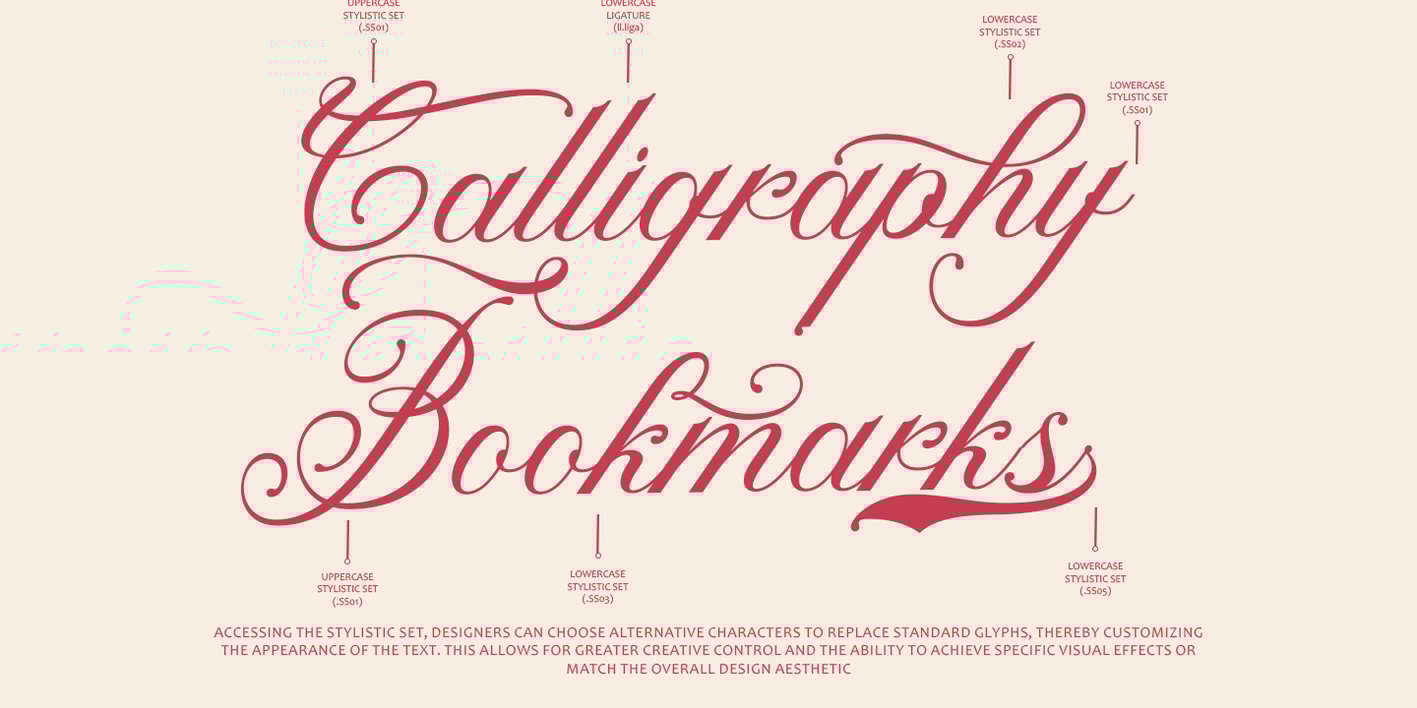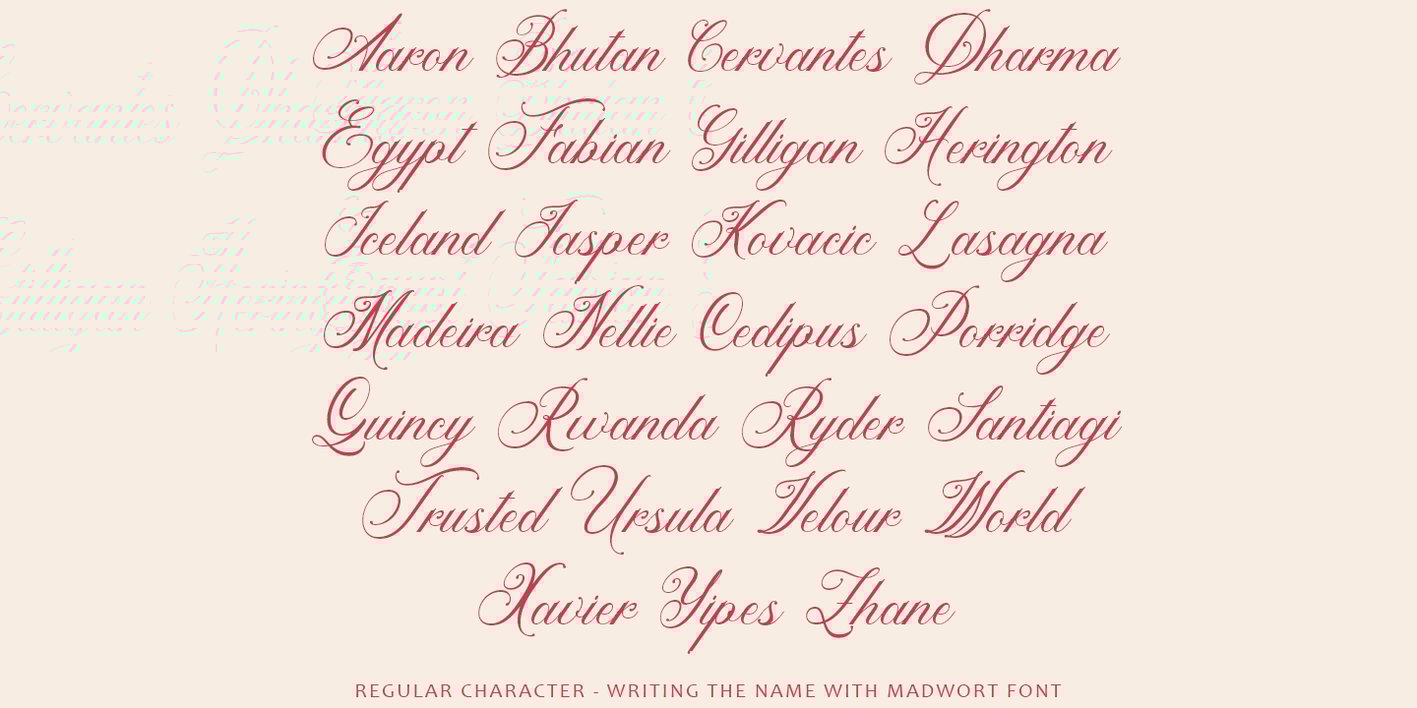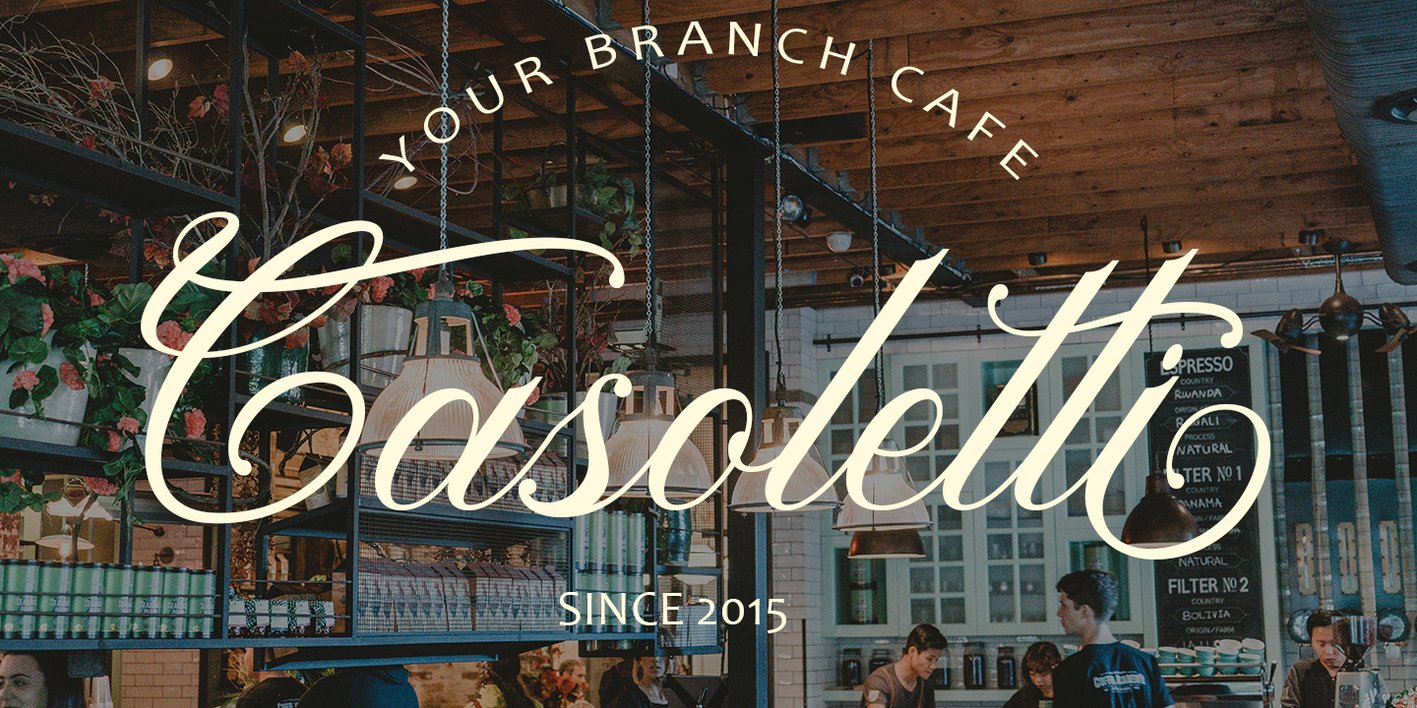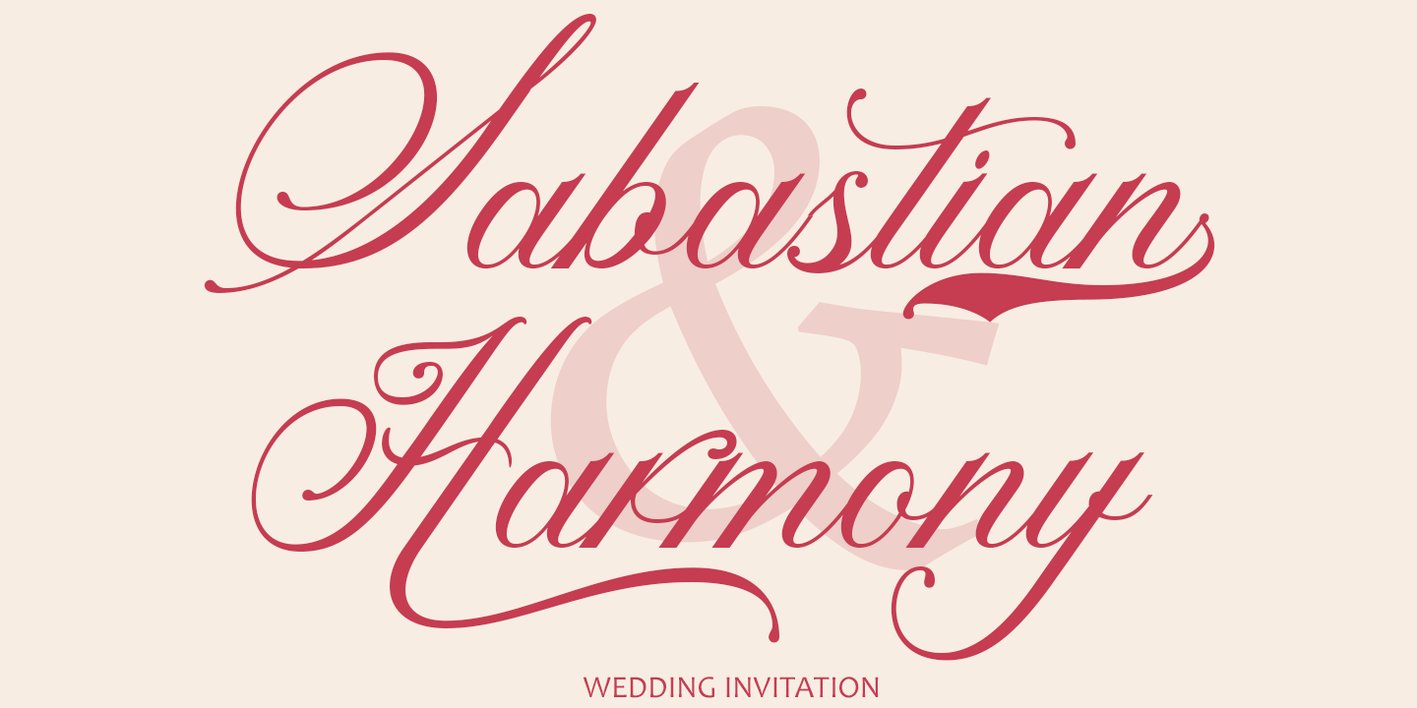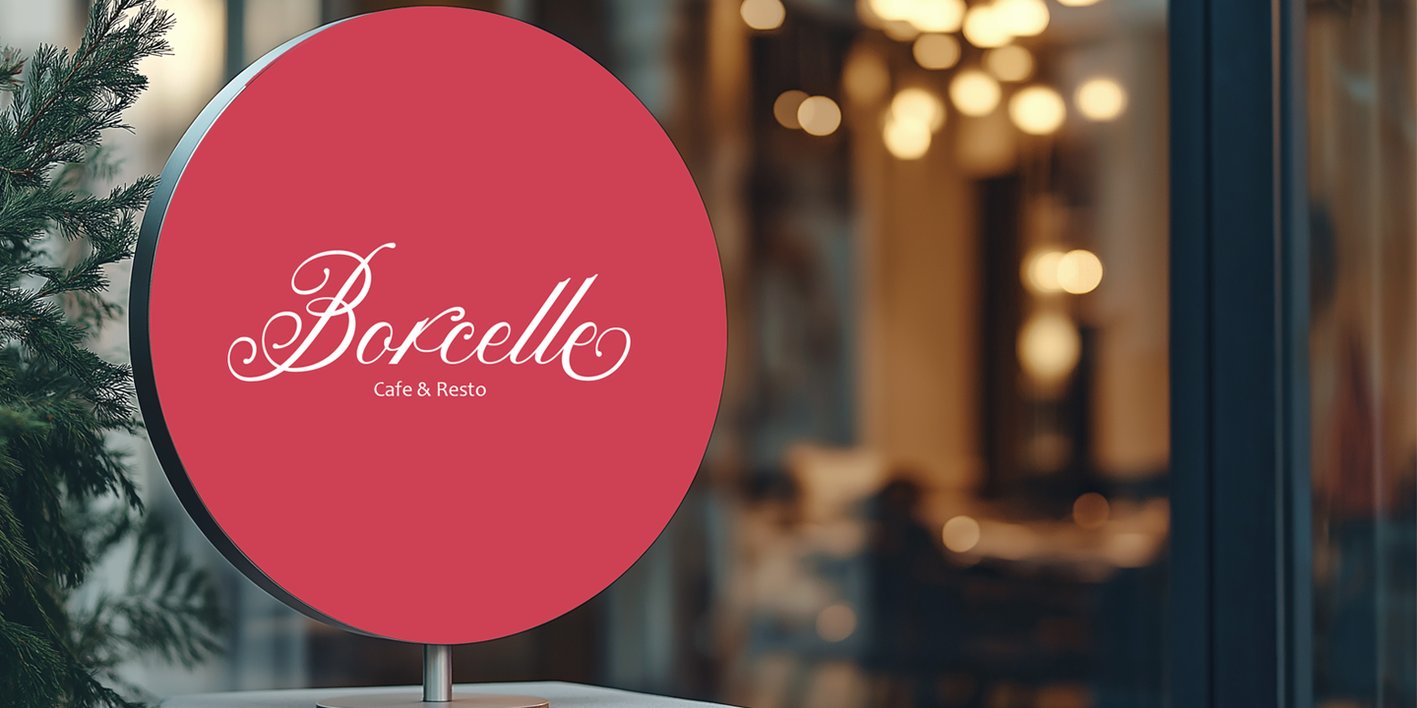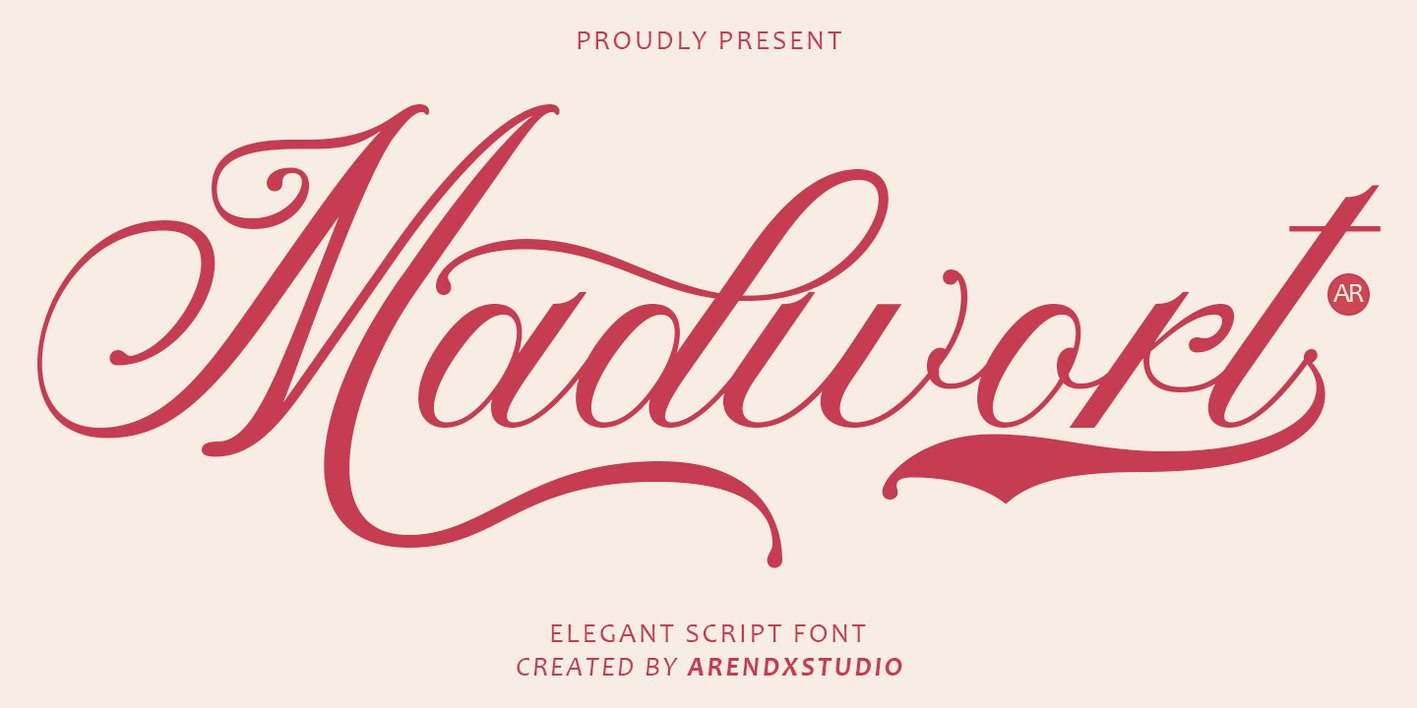
Madwort Font
The Madwort Elegant Script Font is a typeface characterized by its flowing, cursive letterforms and sophisticated style. Designed to evoke elegance and luxury, this font is often used in projects that require a refined and polished look, such as wedding invitations, branding, and high-end product packaging.